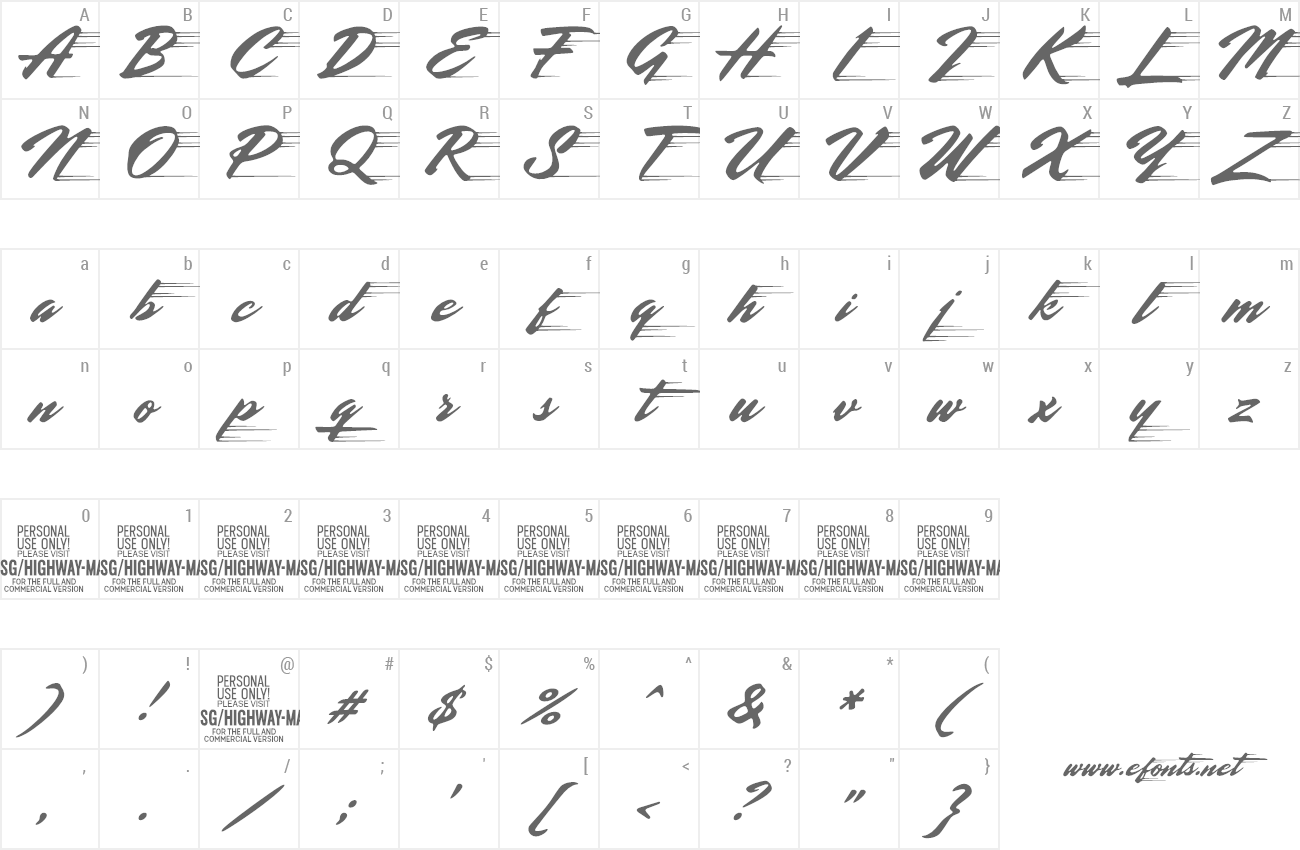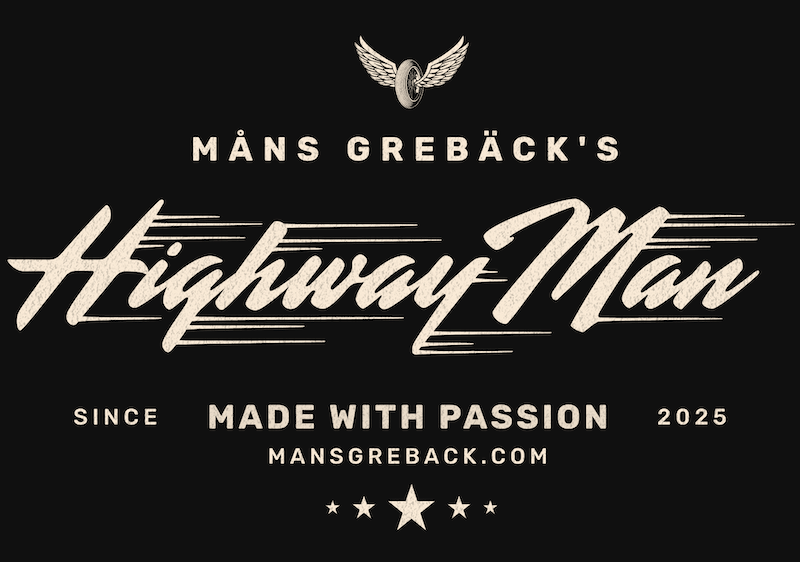
Preview and download Highway Man Font. Created by Måns Grebäck in Script Various styles with Free for personal use license.
NOTE: This font is for PERSONAL USE ONLY! To purchase a commercial license, visit: https://www.mansgreback.com/product/highway-man Highway Man is a high-speed script typeface with an intense, fast-moving style. With nods to vintage automotive culture and classic racing aesthetics while being inherently progressive, Highway Man carries both a retro and modern appeal. For questions, please visit https://mansgreback.com/faq |